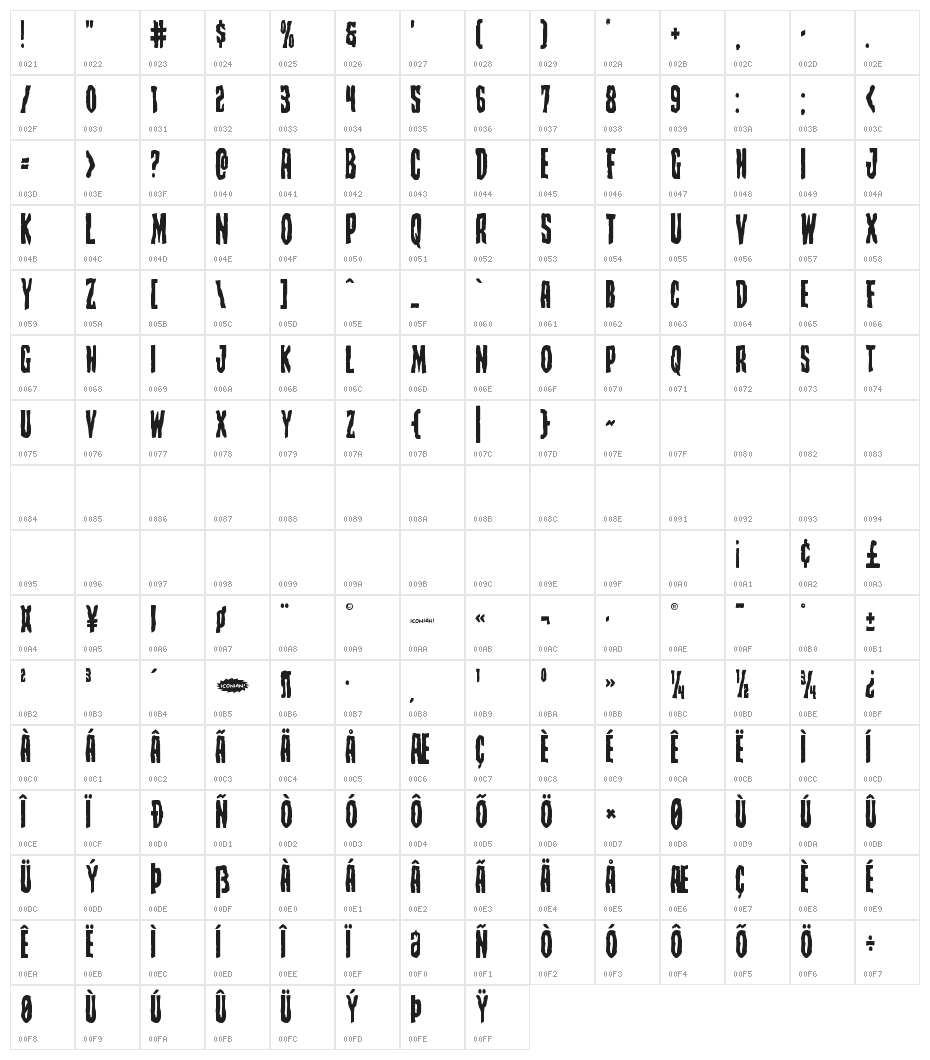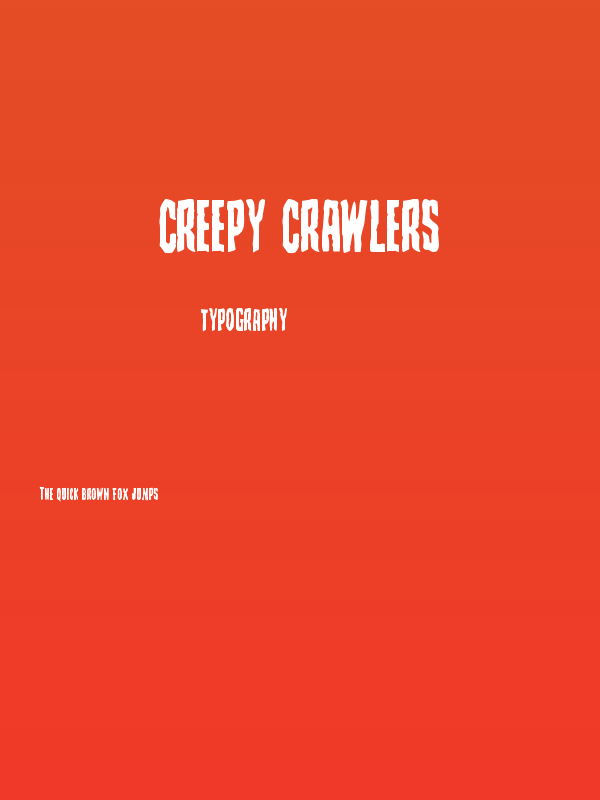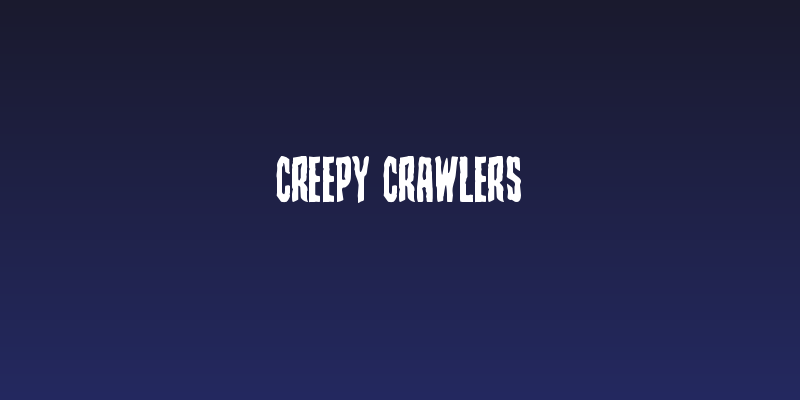
Creepy Crawlers Font
Creepy Crawlers Description
This font features a bold and jagged design, reminiscent of horror or Halloween themes. The characters have an irregular, uneven edge that gives them a hand-drawn appearance, adding to the eerie and unsettling aesthetic. The uppercase and lowercase letters maintain a consistent style, with exaggerated curves and sharp angles that create a sense of movement and chaos. Numbers and special characters follow the same design principles, ensuring a cohesive look across all elements. This font is perfect for projects that require a spooky or playful touch, such as Halloween invitations, horror movie posters, or themed event flyers.
Proposed ProjectsIdeal for Halloween invitations, horror movie posters, themed event flyers, and spooky merchandise designs.